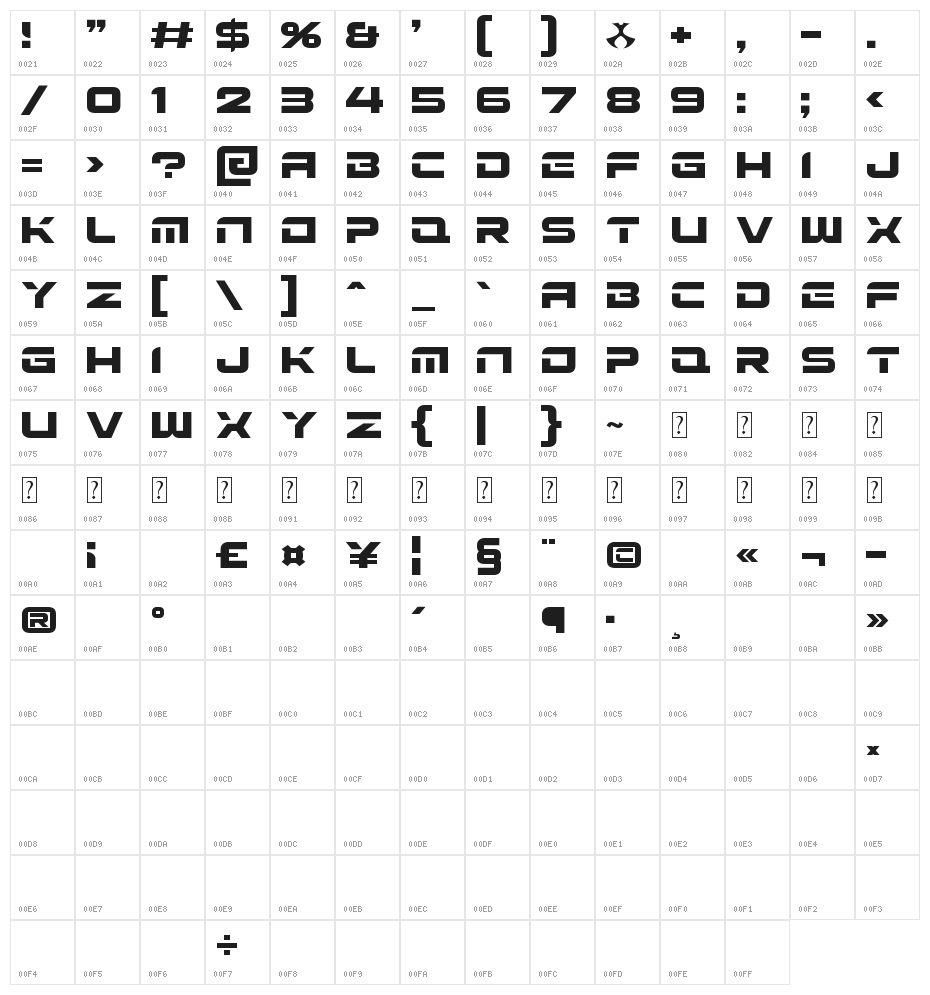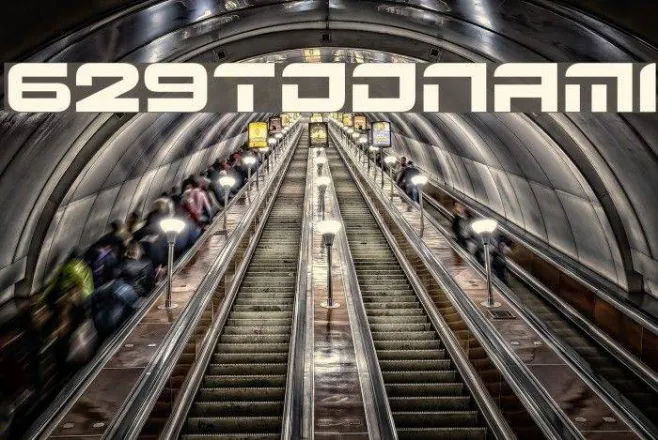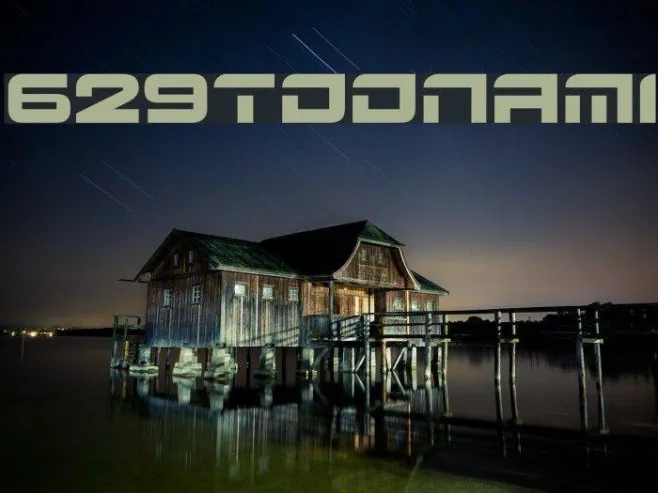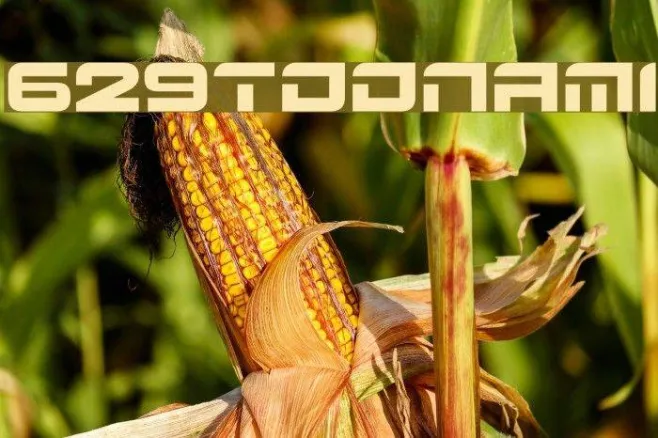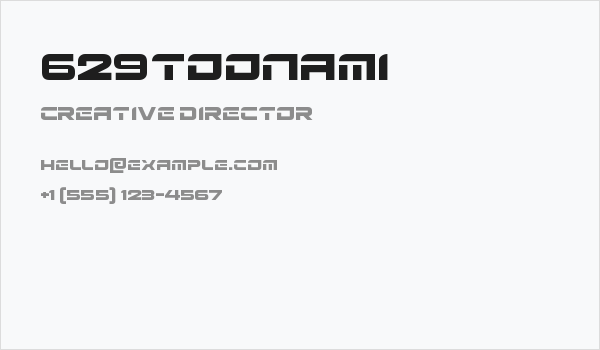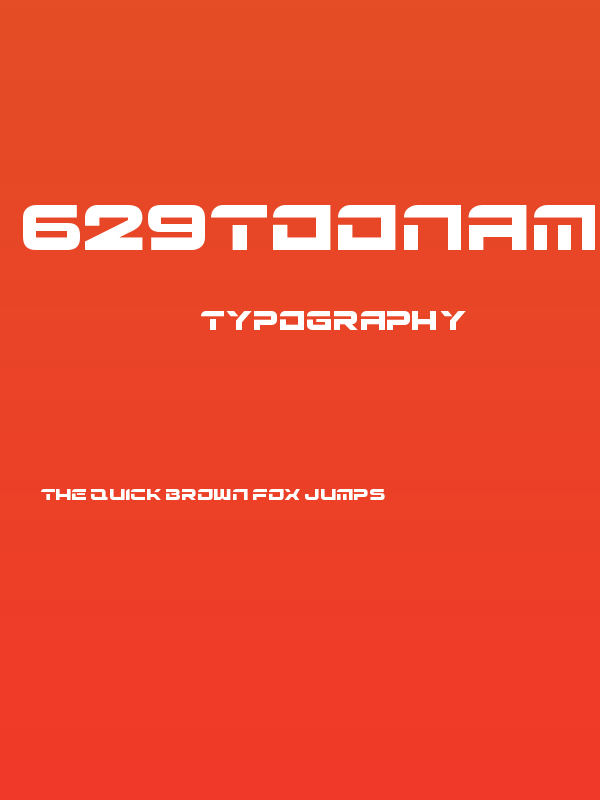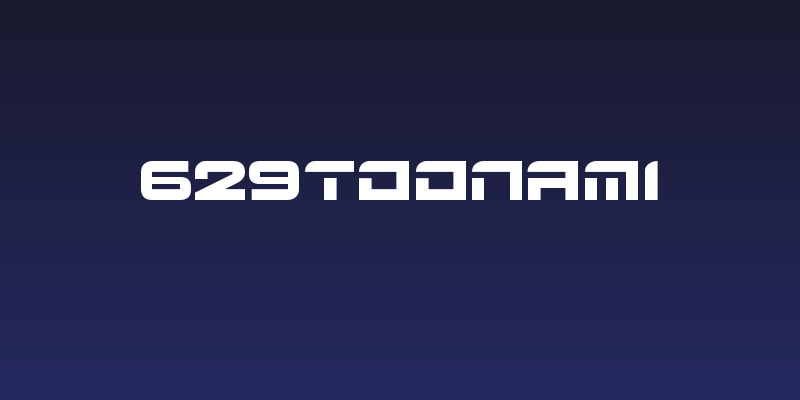
629Toonami Font
629Toonami Description
This font exhibits a futuristic and bold design with a strong geometric structure. The characters are crafted with sharp angles and a consistent thickness, giving it a modern and tech-inspired appearance. The uppercase letters are particularly striking, with a blocky and robust form that commands attention. The lowercase letters maintain the same geometric style, ensuring uniformity across the typeface. Numbers and special characters are designed with the same attention to detail, making them easily legible and visually appealing. The font's overall aesthetic is ideal for projects that require a contemporary and dynamic look.
| Proposed Projects | Ideal for technology branding, sci-fi themed projects, video game titles, and modern advertising campaigns. |